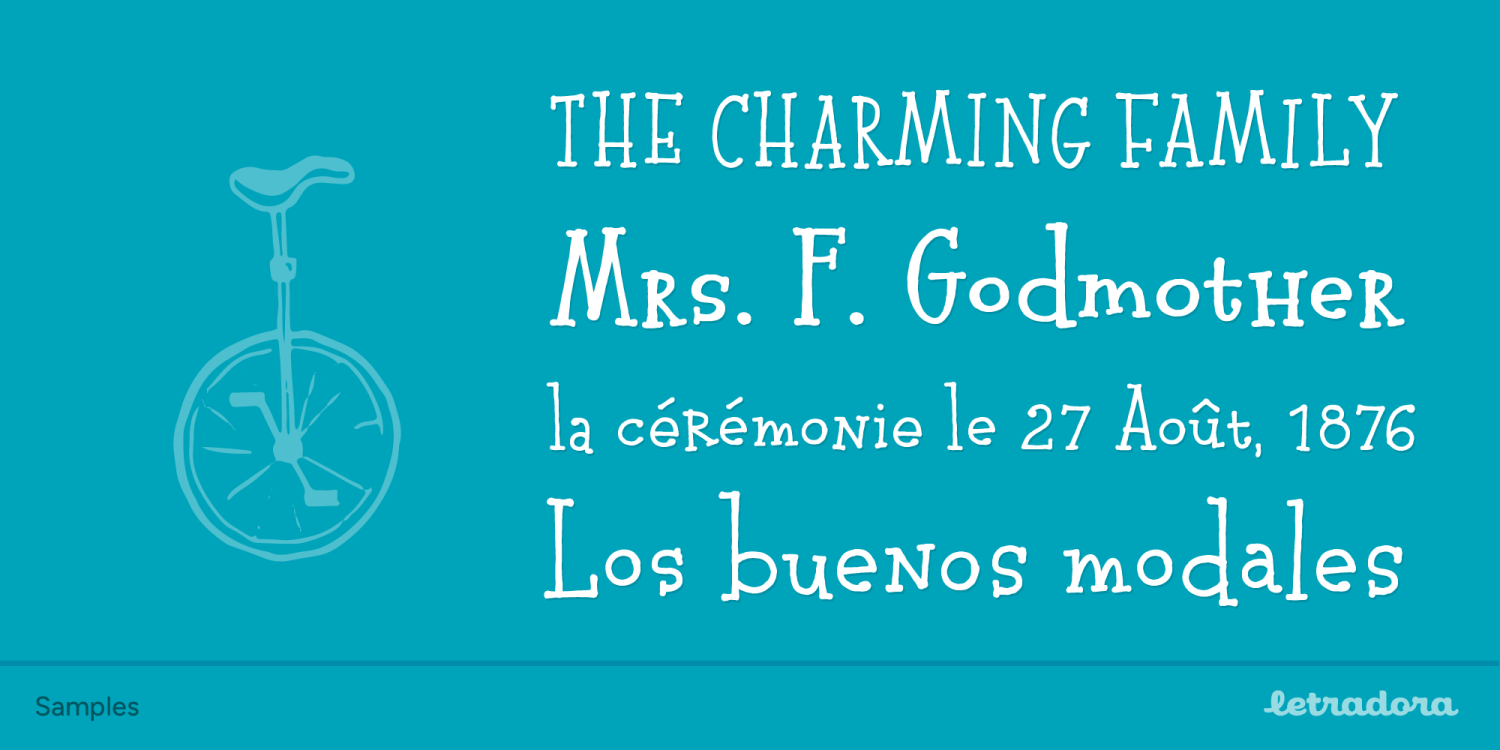
Pocket Serif
Font Family by Letradora
This hand drawn serif font is perfect for giving a fun touch to your projects. It combines a handmade look and rough texture with classic serif forms. It has support for most western and central European languages, and has alternates for most letterforms accessible through Opentype features, allowing for variations that make it look authentically hand-drawn.